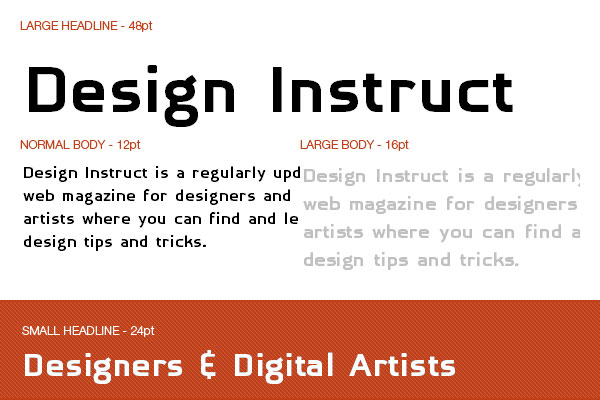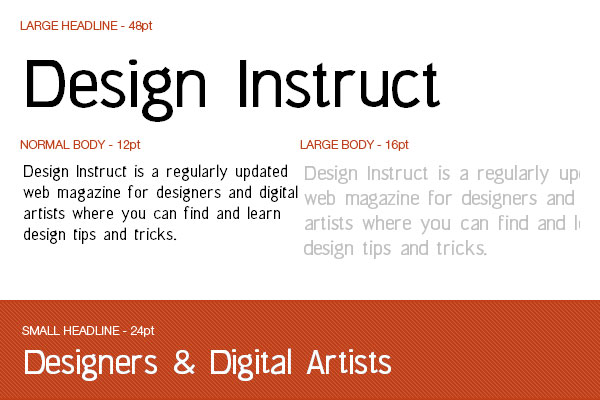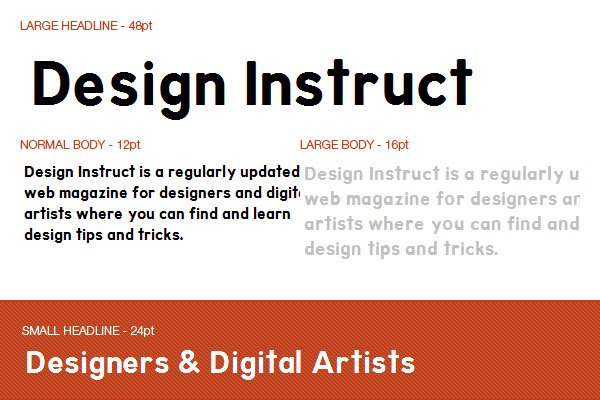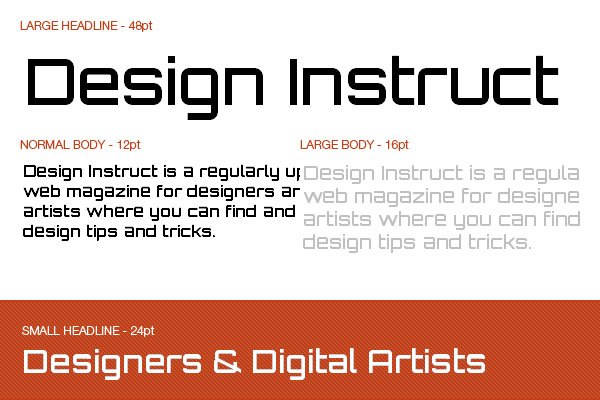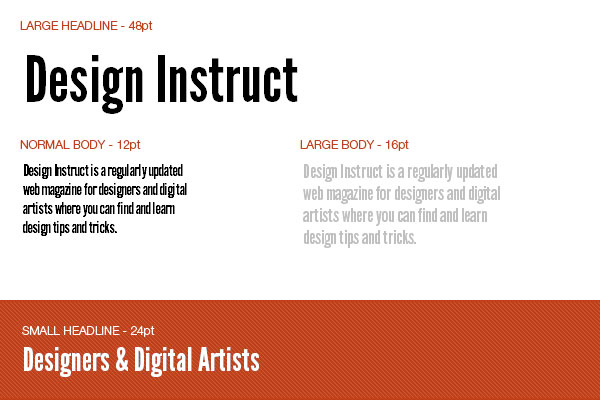
Font Collection: 10 Free Bold Sans Serif Fonts
1. Bebas Neue
Created by Japan-based type/font foundry Flat it type foundry (a part of the Dharma Type group), Bebas Neue is a clear and modern font.
2. League Gothic
Made by the open source type movement group The League of Moveable Type, this font is a remake of Alternate Gothic No.1 by Morris Fuller Benton.
3. Mentone Semi Bold
Mentone, inspired by celebrated fonts like Myriad and Frutiger, is a multi-purpose font released under Jan Schmoeger’s foundry, Paragraph.
4. Designation
Craftily produced by the “mad scientists” at Haiku Monkey, Designation is an open source font that’s sleek and has an air of modernity.
5. Resonance Bold
Resonance Bold has remarkable curves inspired by the 70’s era. Designed by Jim Ford and based on type designs by Phil Martin, the font is fun and light-spirited.
6. Patagonia
Designed by Canadian type designer Jaley Fiege, Patagonia is a 19th-century-inspired display face that works well when used in smaller-sized headline copy.
7. Oblik Bold
Oblik is a large, modern and sophisticated font by Tour de Force Font Foundry. Striking curves denote the unique characteristic of this sans serif font.
8. Aerohop
Aerohop is a sans serif font also produced by Alec Julien’s font foundry, Haiku Monkey. This font is contemporary, powerful, and works well in headline copy.
9. Capricorn OSF Black Ltd
Capricorn is a compact and strong font designed by California-based German designer Jens Gehlhaar. The font works well in magazine headlines.
10. Orbitron
Crafted by graphic designer Matt McInerney for The League of Moveable Type, this sci-fi inspired font is an excellent alternative to Eurostile or Bank Gothic.